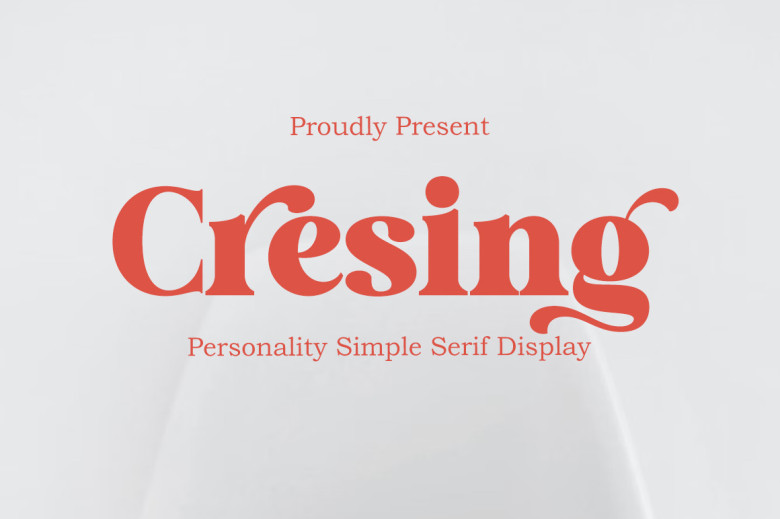
Cresing Font
Cresing out a modern Serif Font that suitable for branding, poster design, t-shirt, invitations, designs for kids, and editorial design. Cresing having many style including the fastener style.
Cresing Serif Font